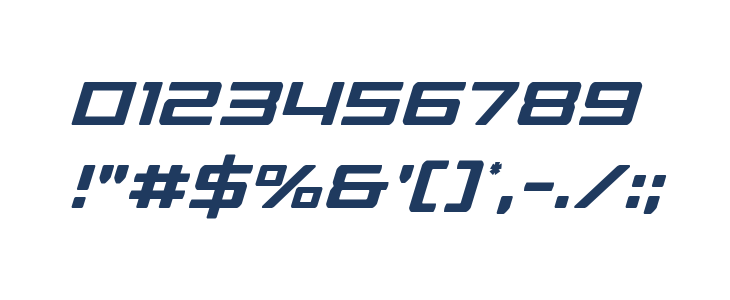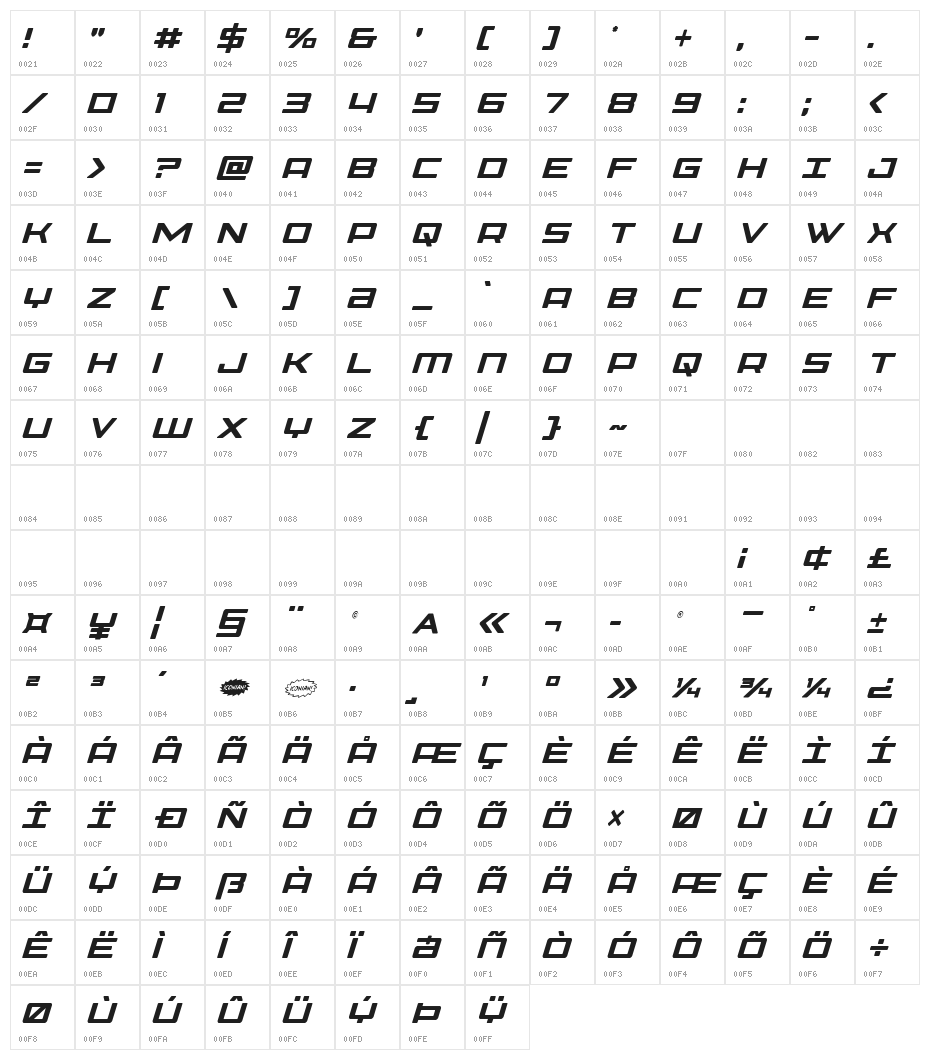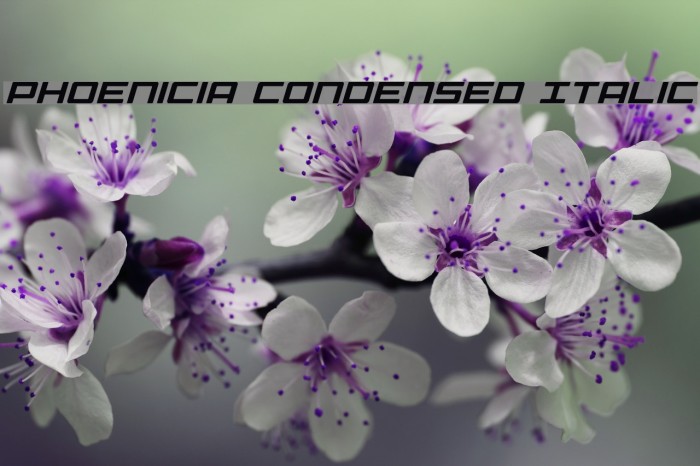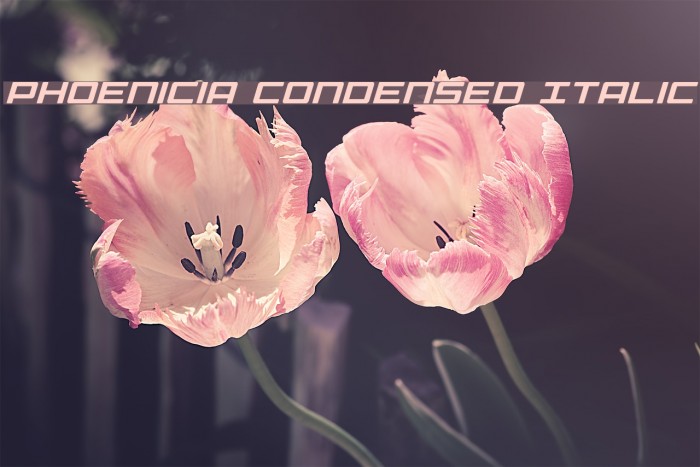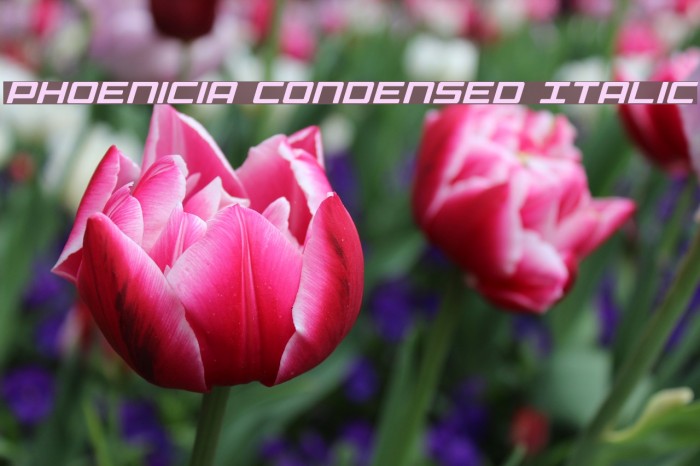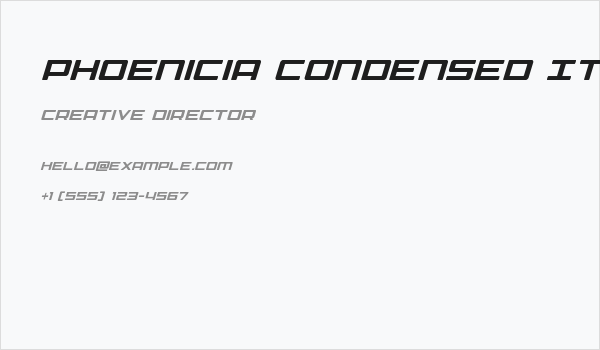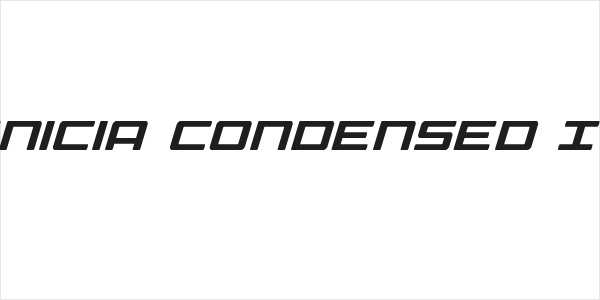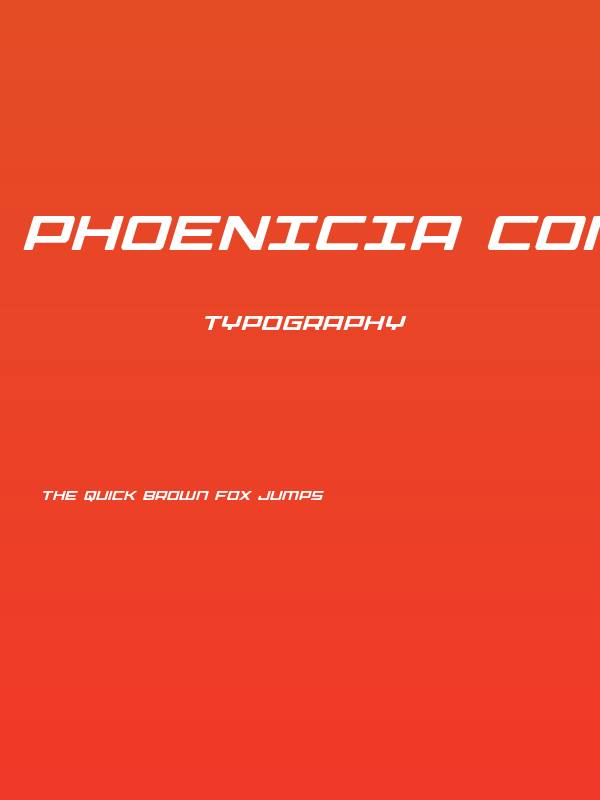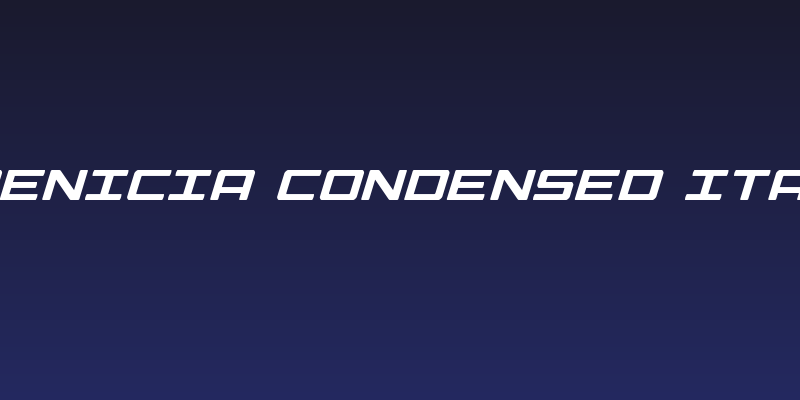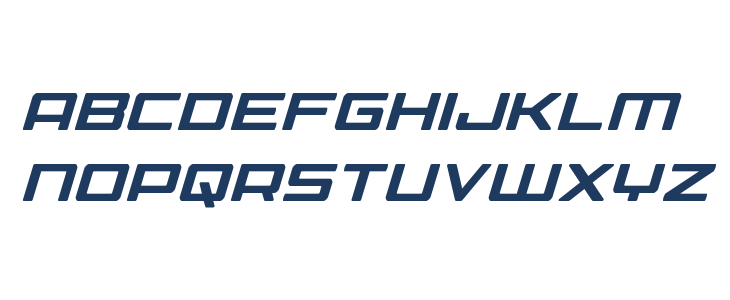
Phoenicia Condensed Italic Font
Phoenicia Condensed Italic Description
This font features a sleek, modern design with a condensed and italicized style. The characters are angular and streamlined, giving a sense of forward motion and dynamism. The uppercase and lowercase letters maintain a consistent slant, enhancing the italic effect. The numerals are bold and easily readable, while the special characters complement the overall aesthetic. The font's geometric structure and sharp edges make it suitable for contemporary design projects, where a futuristic or tech-inspired look is desired.
| Use Case | Headlines, Logos, Digital interfaces |
| Proposed Projects | Ideal for tech branding, futuristic posters, digital interfaces, and modern advertising campaigns. |